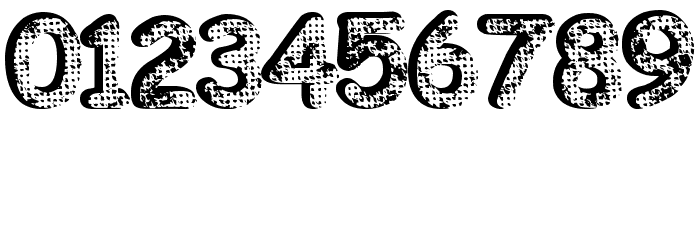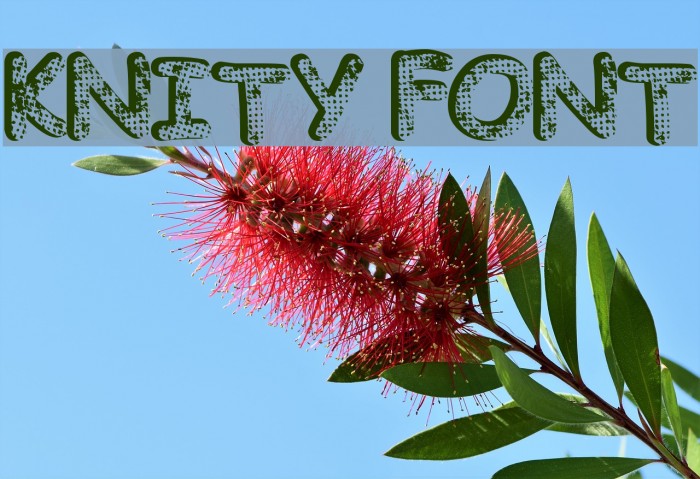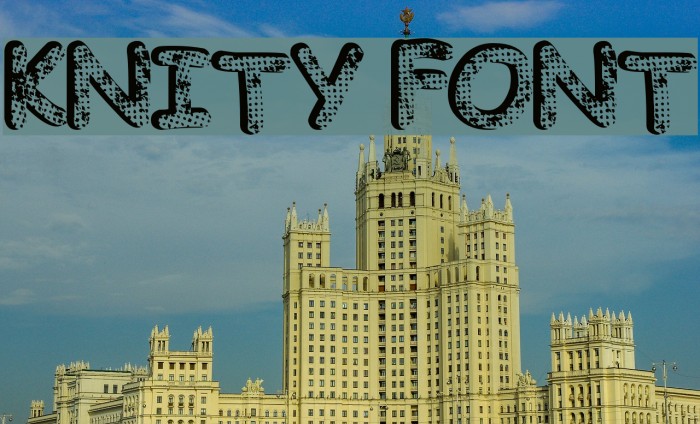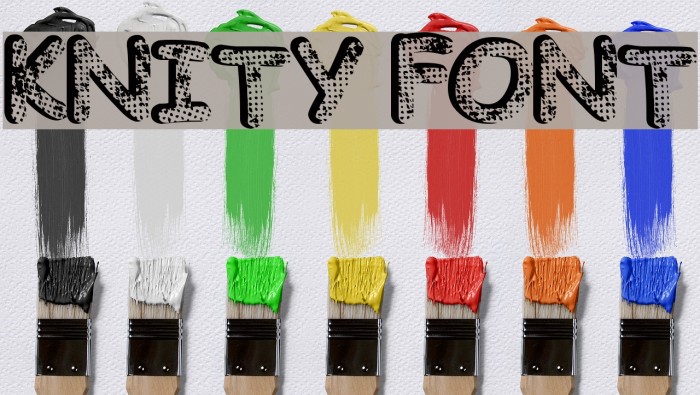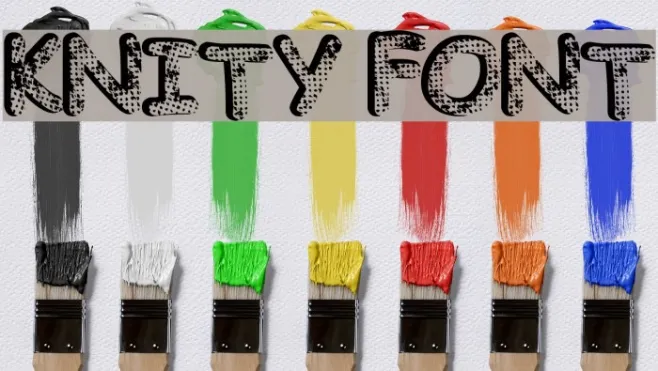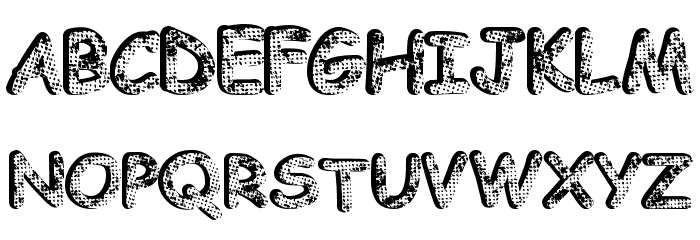
Knity Font
This font features a playful and textured design, reminiscent of a knitted pattern. Each character is filled with a dotted texture that gives a sense of depth and dimension, making it stand out in any design. The letters are bold and rounded, providing a friendly and approachable appearance. The unique texture adds a handcrafted feel, perfect for projects that require a personal touch. The font maintains consistency across uppercase, lowercase, and numerical characters, ensuring readability while adding a decorative flair.
A playful, textured font with a knitted pattern and bold, rounded characters.
• Proposed Projects: Ideal for crafting projects, children's books, playful branding, greeting cards, and DIY-themed designs.
• Category: Decorative/Display
• Bold: Yes
• Italic: No
• Weight: Bold
• Width: Normal
• Character Spacing: Normal
• Contrast: Low
• Overall Style: Playful, Handcrafted
• Use Case: Headlines, Logos, Posters